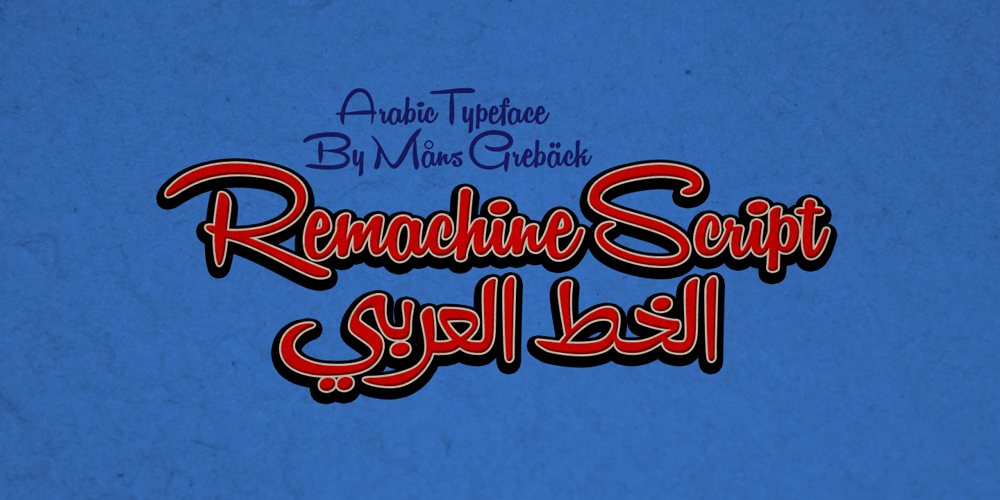
Remachine Script Arabic Font Family was designed by Måns Grebäck and published by Mans Greback. Remachine Script Arabic contains 1 styles and family package options. Remachine Script Arabic is a retro typeface with support for Arabian and Persian Languages, in addition to support for all Latin European languages. The font contains all characters you’ll ever need, including all punctuation and all types of Arabic numbers.